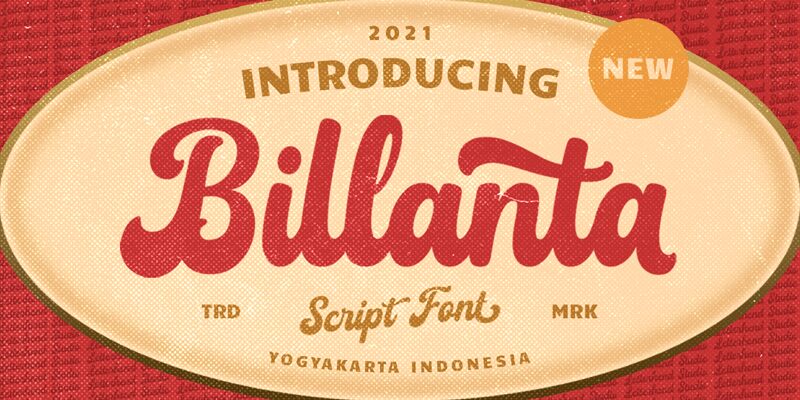
Introducing Billanta, a bold retro handwritten script font designed by Letterhead Studio. Perfect for adding personality to logos, posters, t-shirts and more!